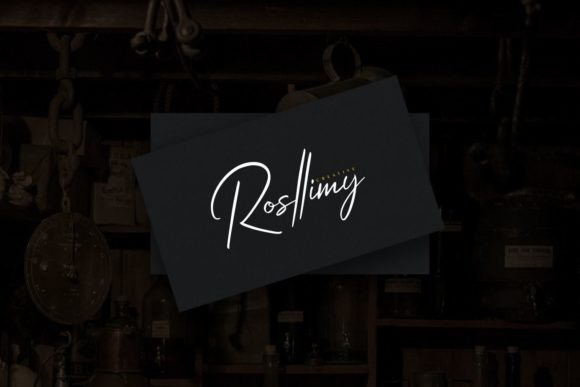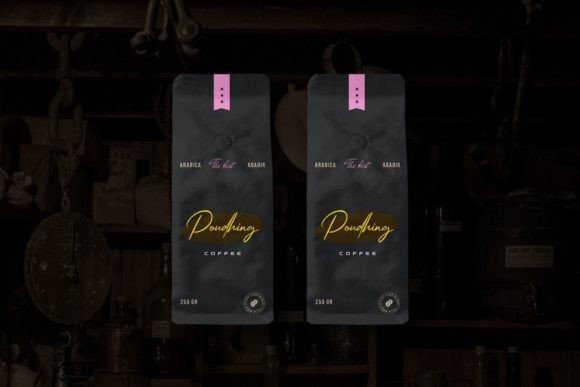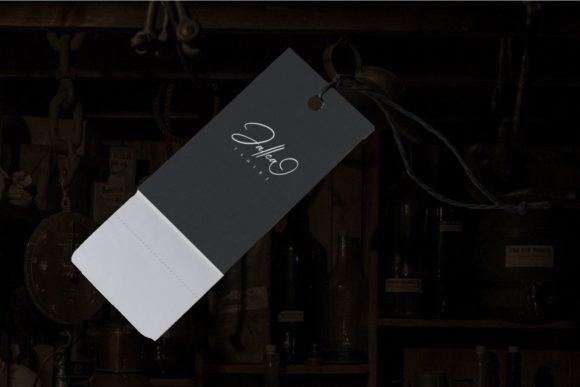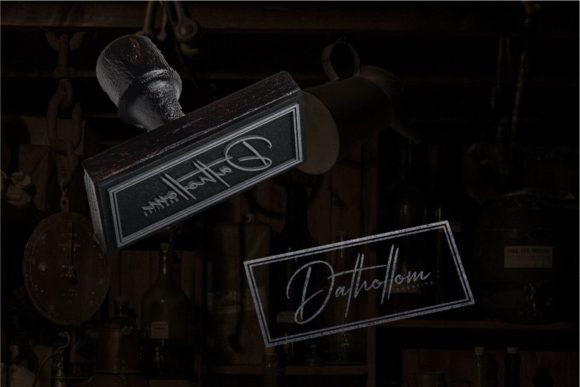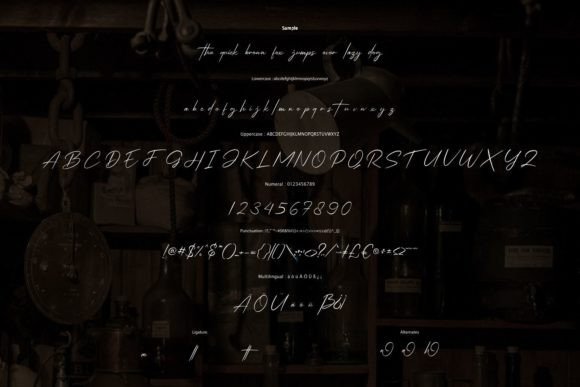
Introduction to Billiethon Font
Have you ever been stuck in a creative rut, searching for that perfect design element to elevate your project? I’m sure we’ve all been there. For me, it was the moment I stumbled upon the stunning Billiethon Font. Its unique blend of modern and handwritten styles immediately caught my eye, and I knew I had to learn more.
As a designer, I can attest to the value of having high-quality design resources at our fingertips. The Billiethon Font is an exceptional addition to any design arsenal, offering endless possibilities for creative projects. With its transparent background, it’s perfect for designing beautiful stationary art, eye-catching social media posts, and even gorgeous wedding invitations.
Key Features of Billiethon Font
- High-quality, unique design ideal for creative projects
- Comes with a transparent background for versatile usage
- Perfect for designers and artists looking for a distinctive font for their projects
Honest Review: Billiethon Font
I recently stumbled upon the Billiethon Font, and I must say, it’s a game-changer for my creative projects. The high quality of this font is truly impressive, and I appreciate how versatile it is for various design needs.
- ✨ The transparent background feature makes it easy to customize and integrate into different design elements.
- ✨ The font’s creative and unique design style is perfect for adding a touch of personality to my projects.
However, there are a few limitations I’ve noticed:
- ⚠️ The font might not be suitable for all types of projects, especially those requiring a more conservative or traditional look.
Overall, I’m thoroughly impressed with the Billiethon Font. It’s a valuable design resource that I’ll definitely be using for my future projects. If you’re looking for a high-quality font to elevate your creative work, I highly recommend giving it a try.
Tips for Getting the Most Out of Billiethon Font
Experiment with different font sizes and colors to create a visually appealing design. Use Billiethon Font’s transparent background feature to create a seamless design. Combine Billiethon Font with other design elements to create a unique and creative project.
Billiethon Font is ideal for designing logos, brochures, and social media graphics. Its high-quality design and transparent background feature make it a versatile design resource for any creative project.